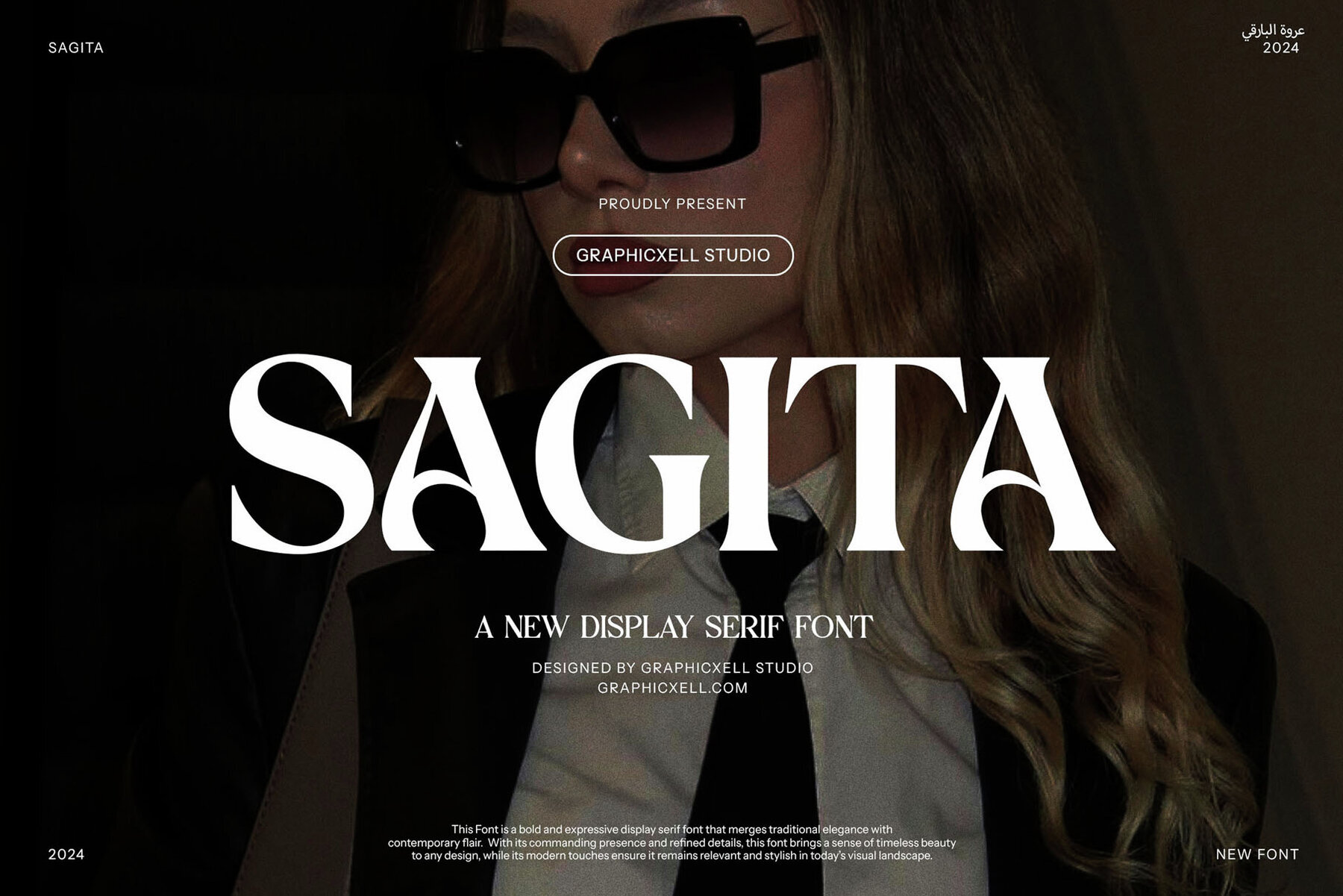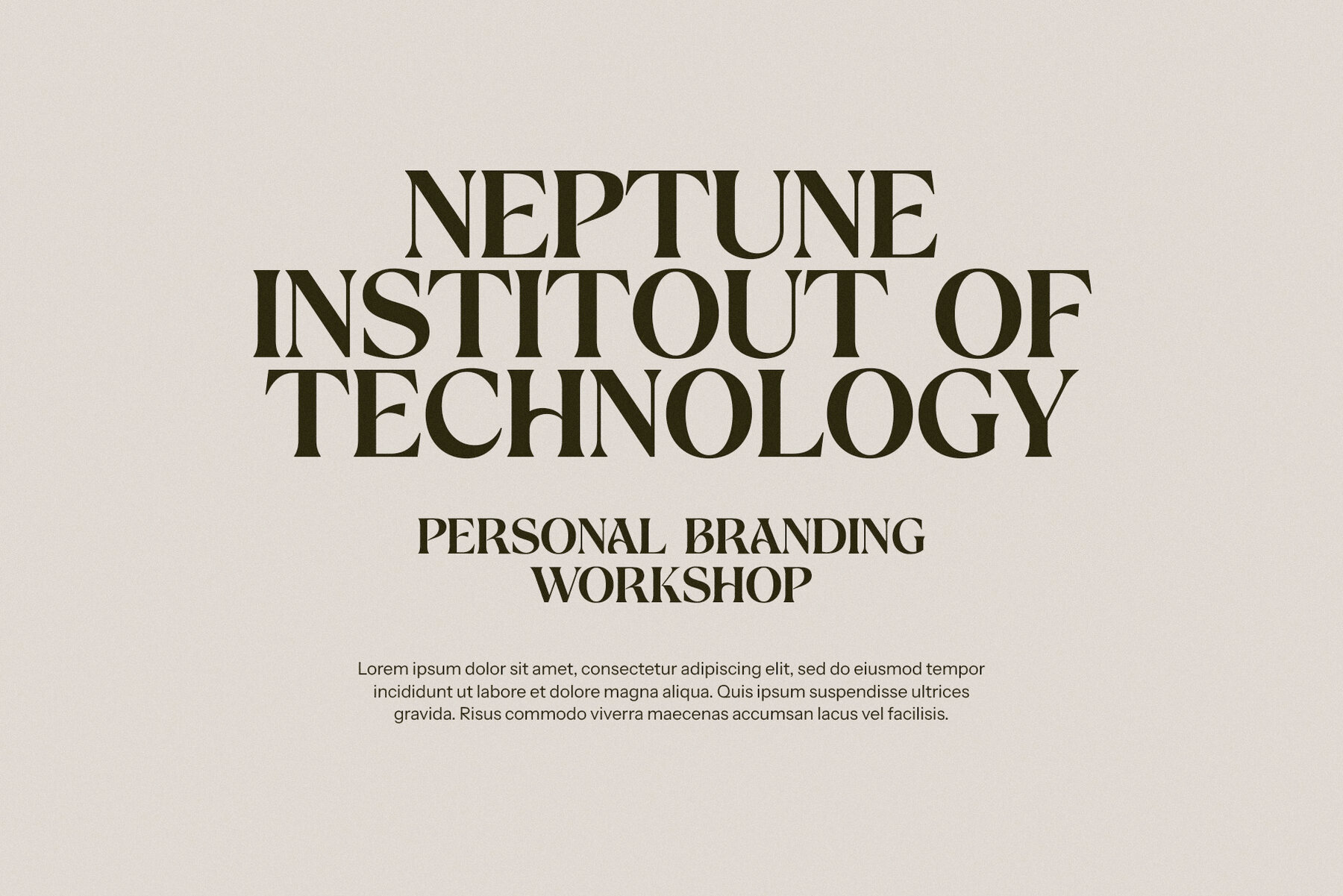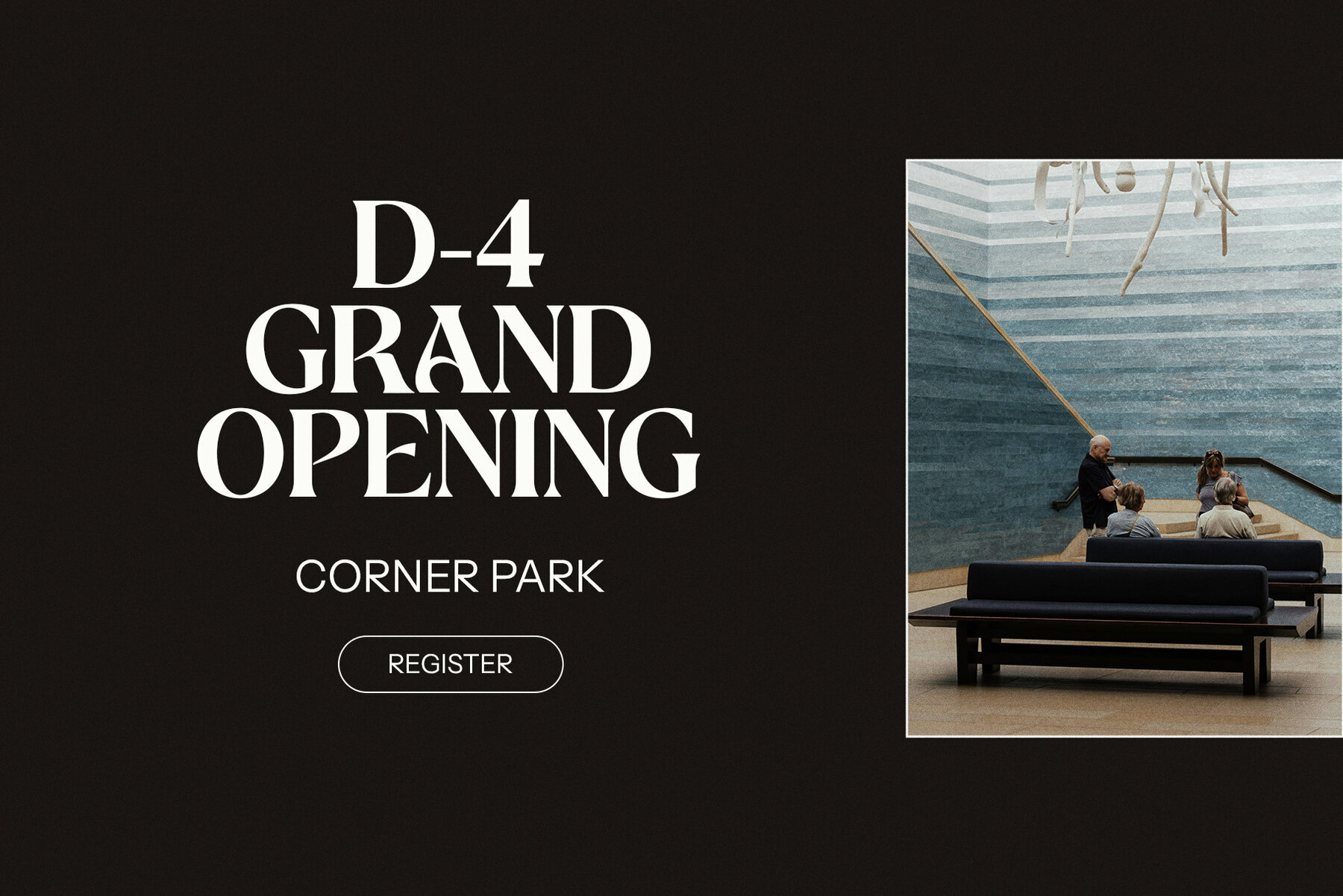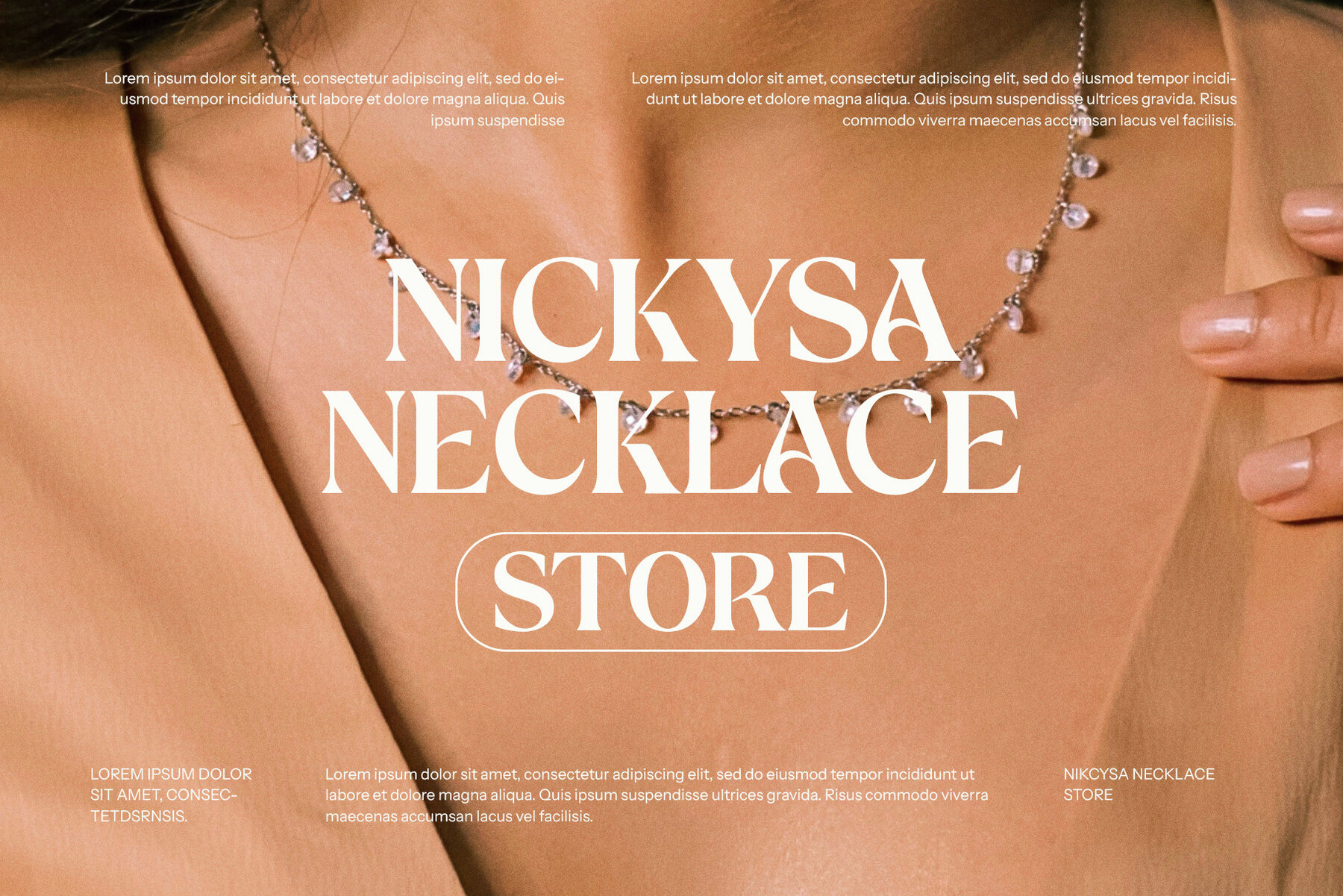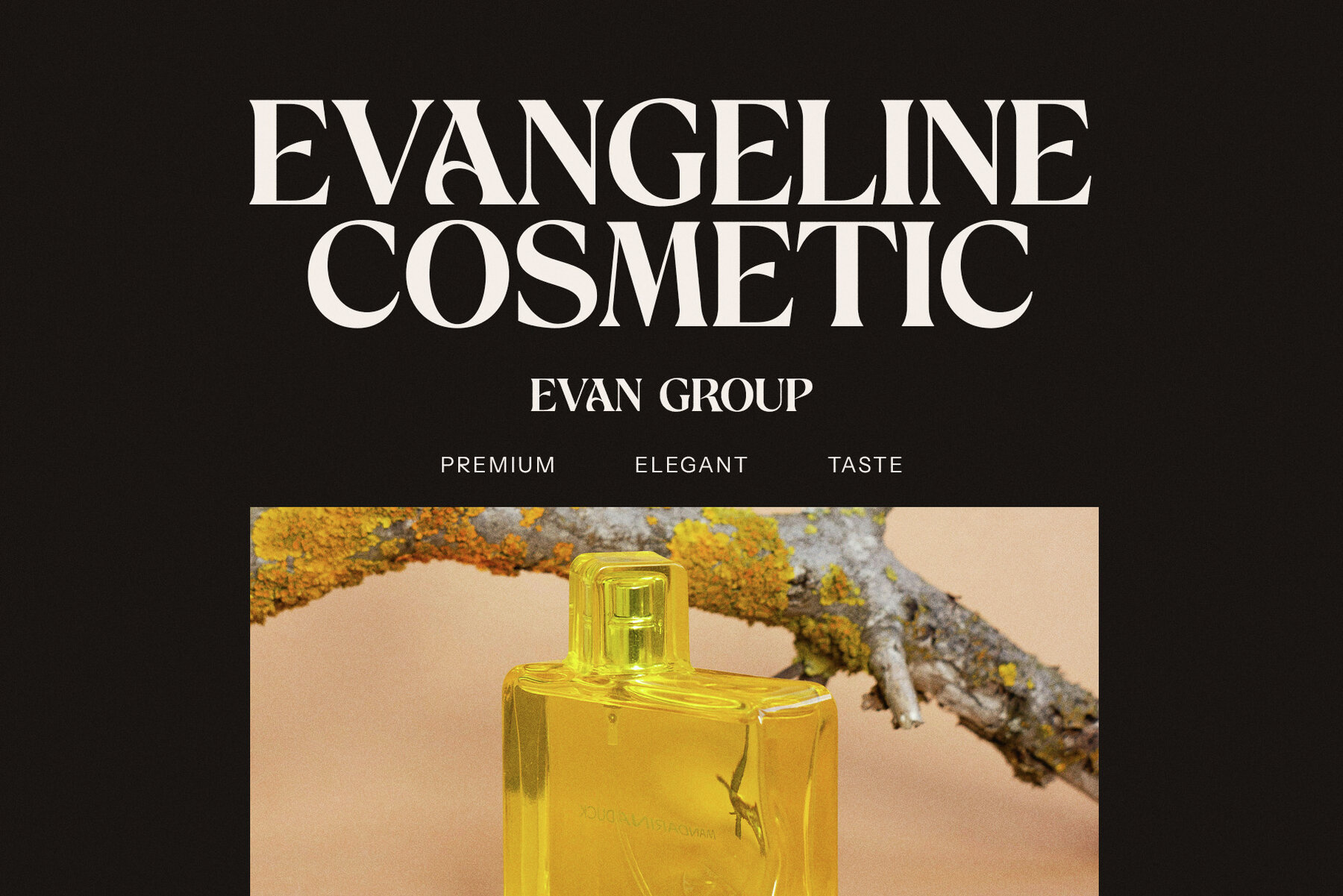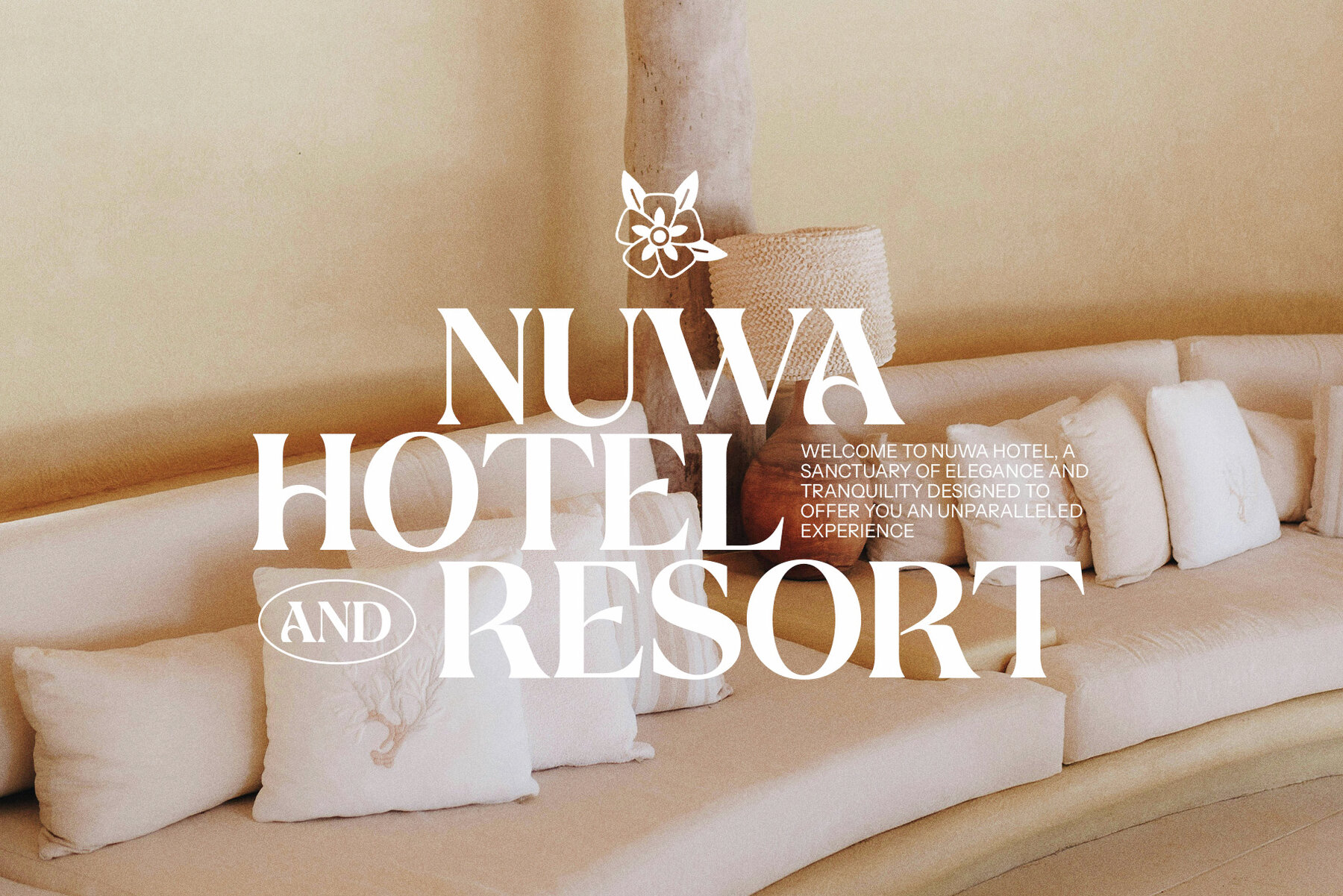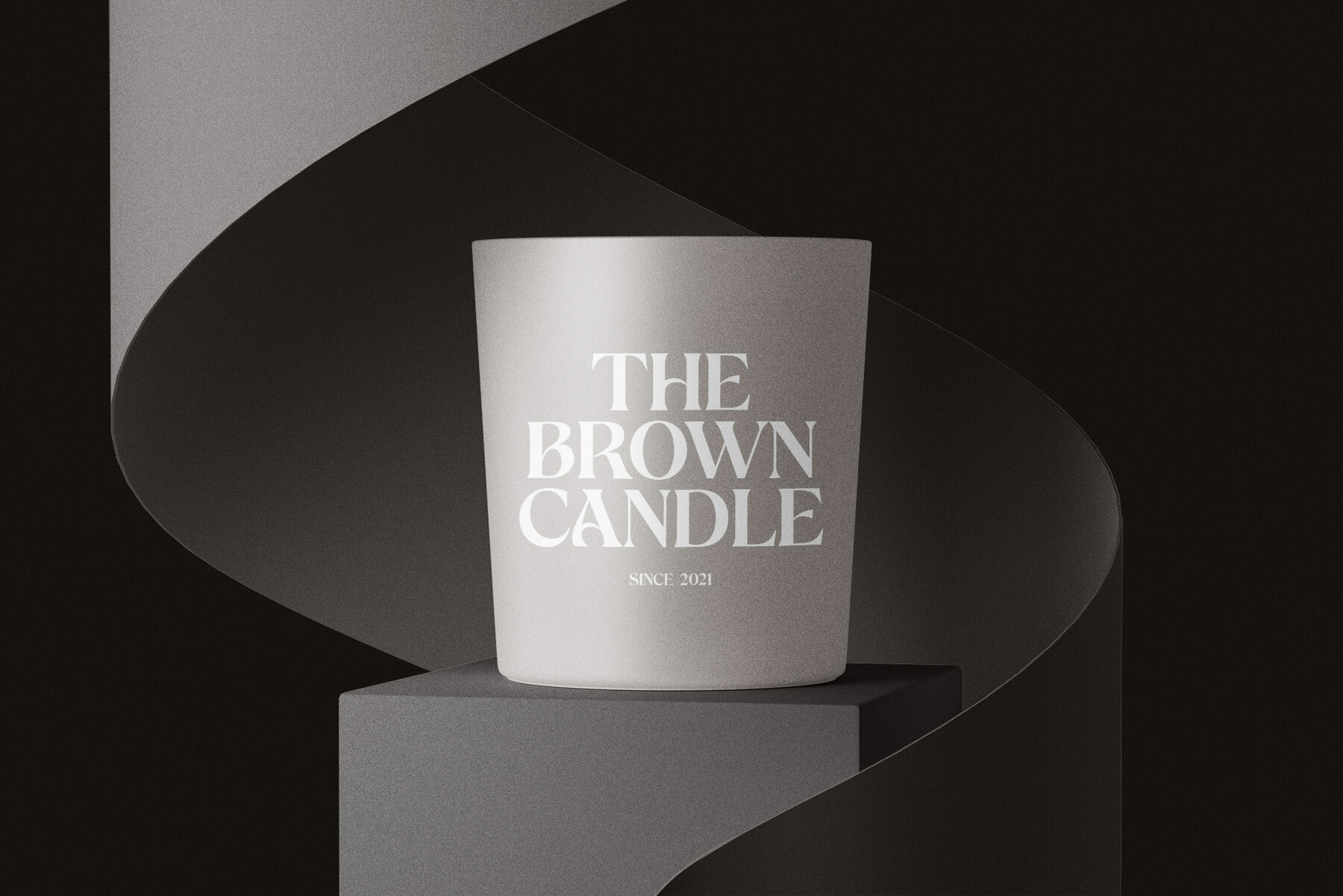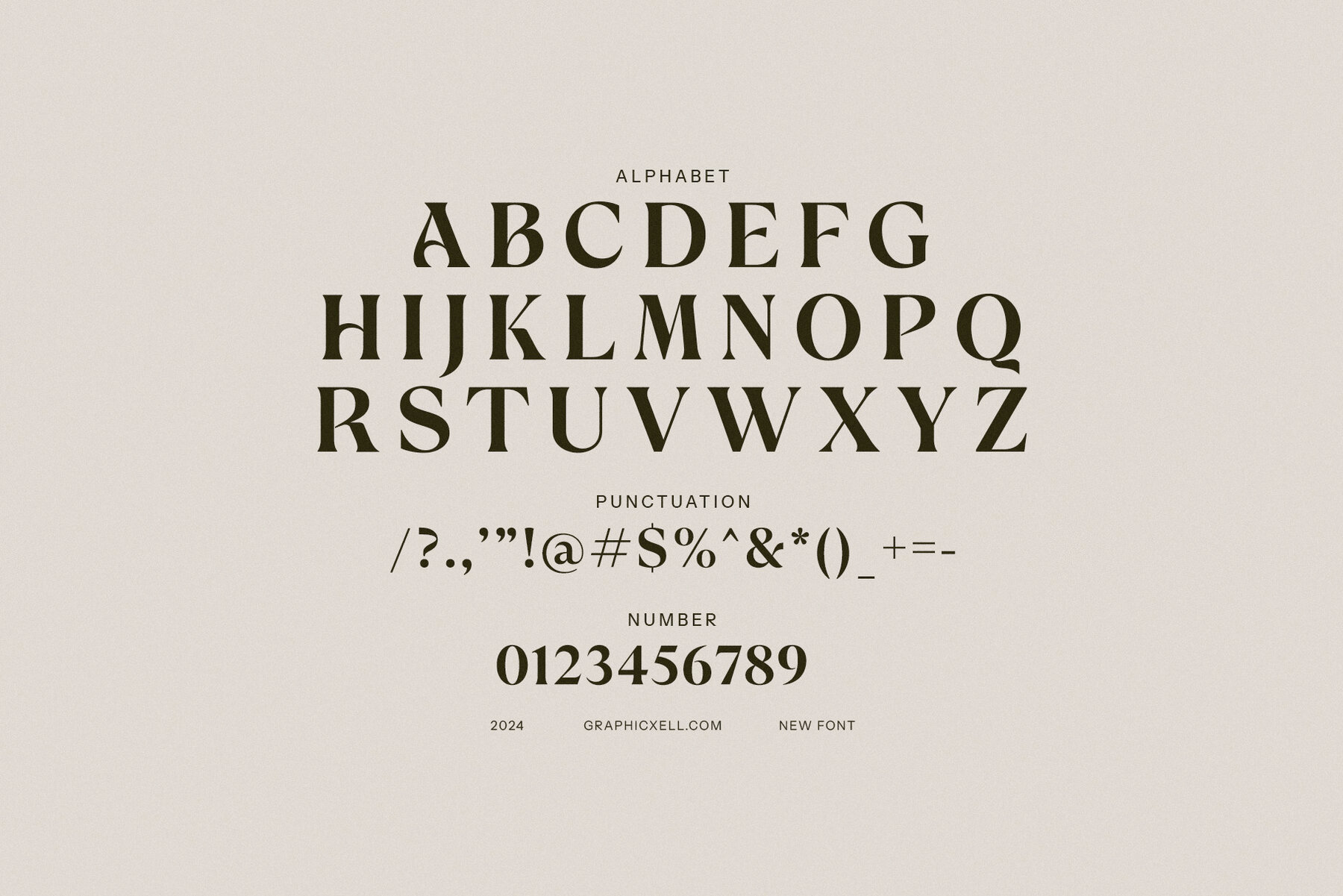
Sagita Font
Sagita
Sagita Elegant Serif Font is a stunning fusion of timeless vintage appeal and contemporary sophistication. Crafted meticulously, this font melds classic serif elements with a distinctive modern style, bringing together a harmonious blend of strength and elegance. Its sharp serifs exude confidence, while the flowing curves and balanced proportions offer a sense of harmony and refinement. Each letterform is designed for both visual appeal and high legibility, making it an excellent choice for both large headlines and finer details.
This font's versatility makes it a standout for a variety of creative projects, from logo design and branding to magazine layouts and product packaging. Whether crafting a high-end invitation, an elegant editorial, or a sophisticated advertisement, Sagita adds a timeless touch to your designs. Its clean lines and precise spacing ensure readability, while its unique flair guarantees a memorable impression. For projects requiring a blend of class and originality, Sagita offers a perfect solution, adding elegance and distinction to any creative endeavor.